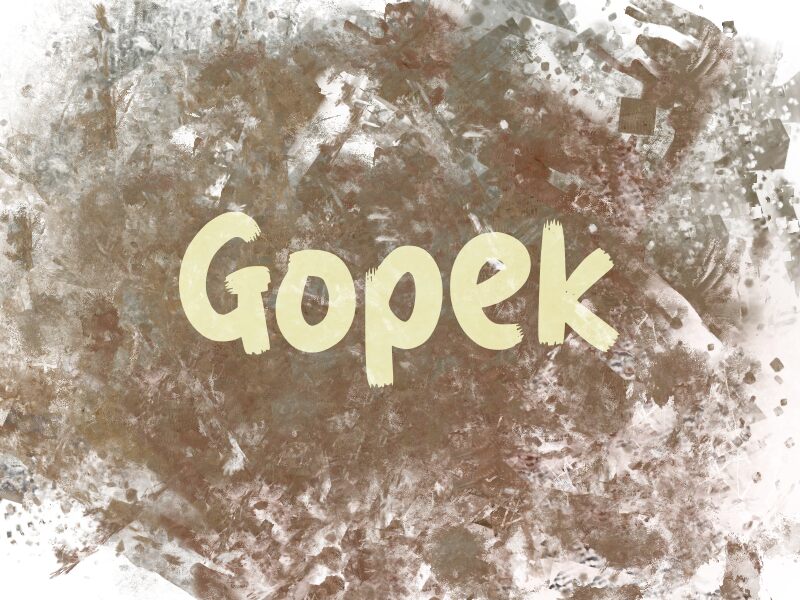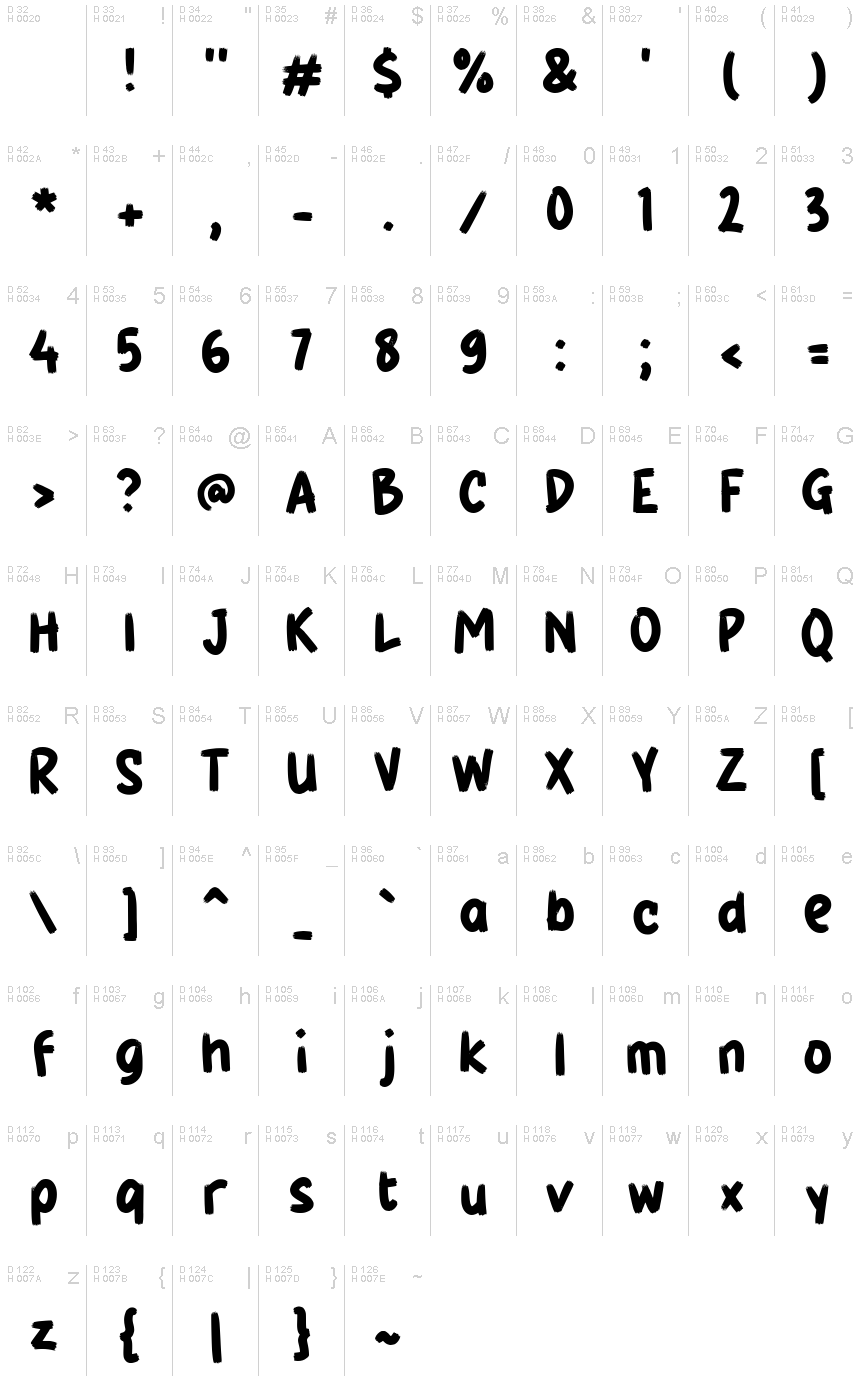
Gopek
Gopek, crafted by the talented designer wep, embodies a bold and expressive handwritten style. This font’s striking irregularities and textured edges give it a raw, organic feel that captures the spontaneous charm of true hand-drawn lettering. Each letter features playful curves and varied stroke widths that exude personality and creativity.
Ideal for brand identities, posters, and social media graphics, Gopek’s distinctive flair adds a touch of authenticity to any project. Its unique character makes it perfect for creating eye-catching headlines or adding a personalized touch to greeting cards and invitations. Gopek stands out not just as a typeface but as an artistic statement in any design context.